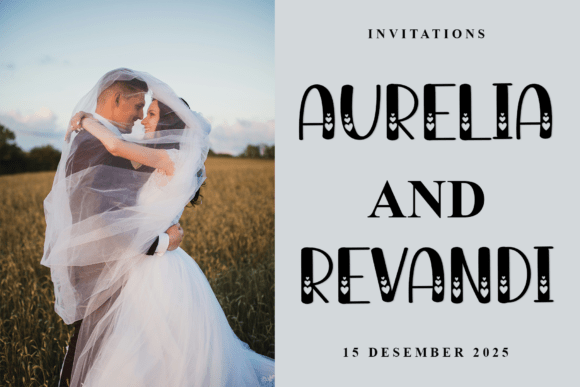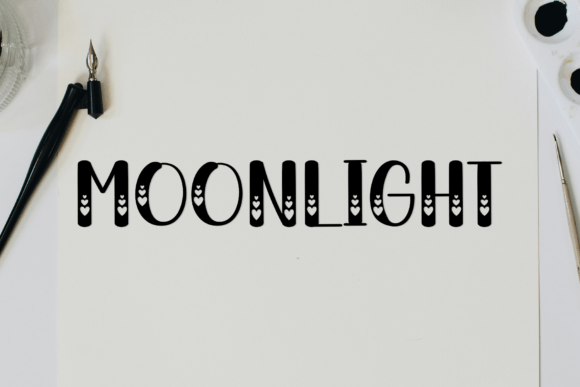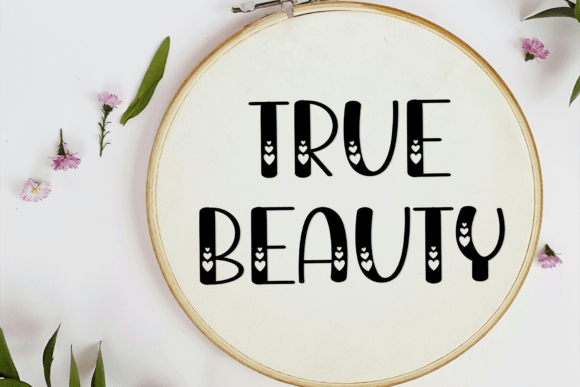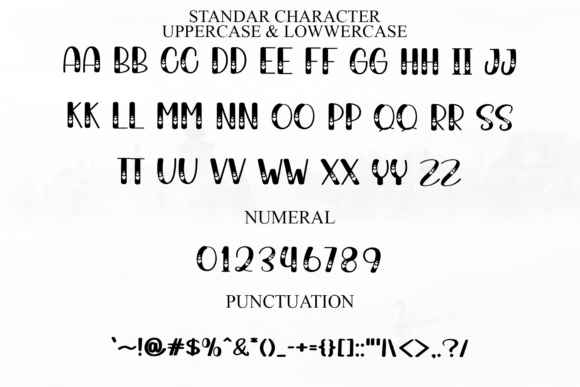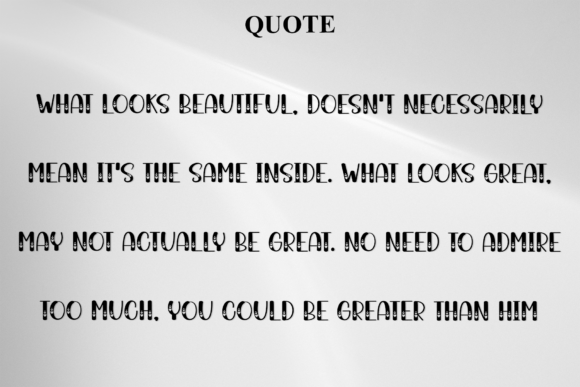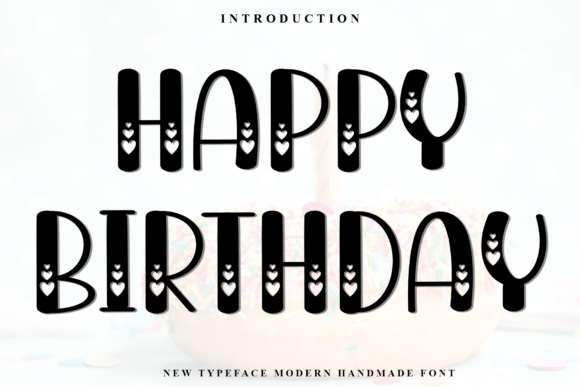
Introducing Happy Birthday Font: A Unique and Versatile Design Element
Are you tired of using the same old fonts for your design projects? Look no further! Happy Birthday Font is a beautiful and eye-catching font designed with a soft, unique touch. Its distinctive strokes give it a special character, making it meaningful and versatile for future use. In this article, we’ll explore the features and benefits of Happy Birthday Font, and how it can elevate your designs to the next level.
Aesthetics and Design
Happy Birthday Font boasts a one-of-a-kind design that sets it apart from other fonts. Its soft and unique touch gives it a warm and inviting feel, making it perfect for a wide range of design projects. The font’s distinctive strokes add a touch of elegance and sophistication, making it ideal for crafts, creative works, and other artistic endeavors.
One of the standout features of Happy Birthday Font is its versatility. With various characters, you can create unique and eye-catching designs that will capture the attention of your audience. Whether you’re designing a birthday card, a craft project, or a commercial product, this font is sure to make your design stand out.
The font’s natural style makes it easy to pair with other fonts and design elements, giving you endless possibilities for creative expression. Whether you’re a professional designer or a crafty DIY enthusiast, Happy Birthday Font is easy to use and integrate into your projects.
Applications and Use Cases
Happy Birthday Font is perfect for a wide range of design projects, including:
• Birthday cards and invitations: Add a personal touch to your birthday greetings with this unique and eye-catching font.
• Crafts and DIY projects: Use Happy Birthday Font to add a special touch to your handmade crafts, such as party decorations, gift tags, and more.
• Commercial products: Incorporate this font into your product designs, such as packaging, labels, and branding materials, to give them a unique and memorable look.
• Artistic and creative works: Use Happy Birthday Font to add a touch of elegance and sophistication to your artistic projects, such as illustrations, paintings, and digital art.
Happy Birthday Font offers a range of benefits for designers and crafters, including:
• Unique and eye-catching designs: Stand out from the crowd with this distinctive font that will capture the attention of your audience.
• Versatility: Use Happy Birthday Font in a wide range of design projects, from crafts to commercial products.
In conclusion, Happy Birthday Font is a beautiful and versatile design element that can elevate your designs to the next level. With its unique and eye-catching design, compatibility with various applications, and ease of use, this font is perfect for designers, crafters, and artists looking to add a special touch to their projects. Whether you’re designing a birthday card, a craft project, or a commercial product, Happy Birthday Font is sure to make your design stand out and appeal to a wide range of audiences.